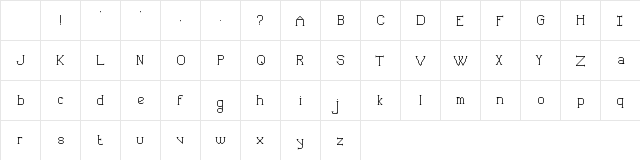
Complete Zombuman Regular glyph index. Displaying only characters natively supported by Zombuman Regular font.
Zombuman is a composed and adaptable typeface that performs quietly and consistently across a wide range of design contexts.